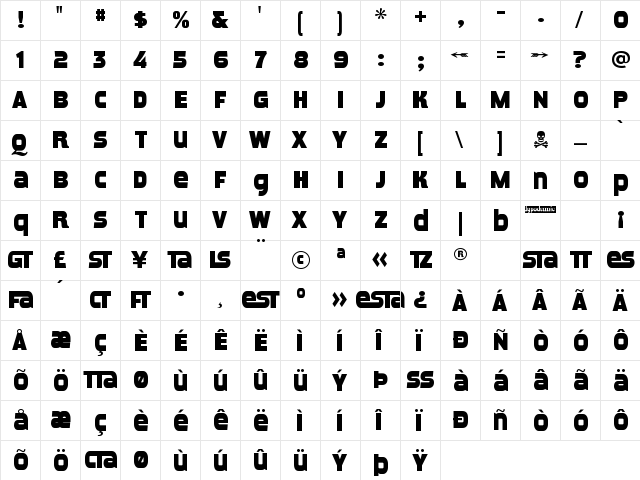
Meposa Regular
Design Context for Meposa Typeface
Meposa is a composed and adaptable typeface that performs quietly and consistently across a wide range of design contexts.